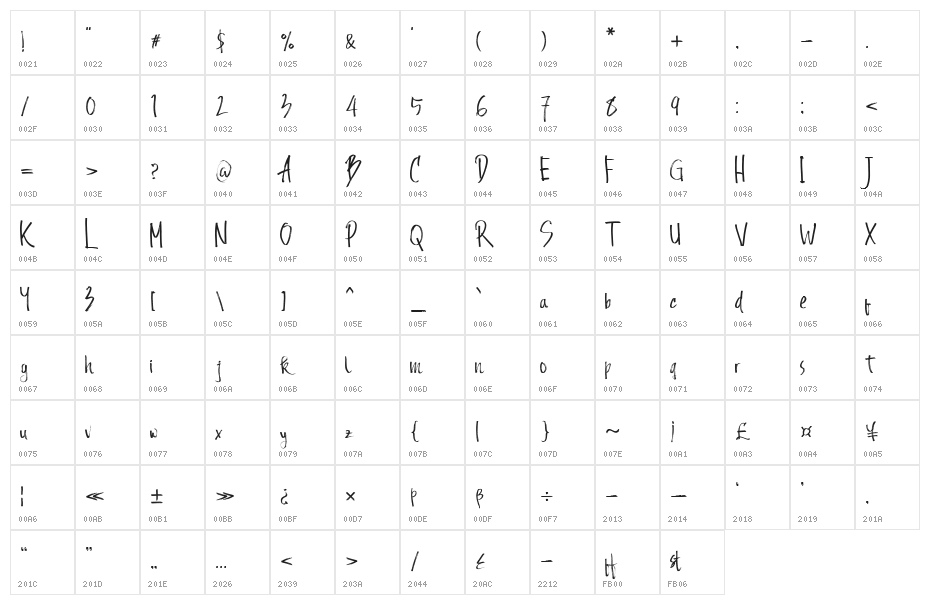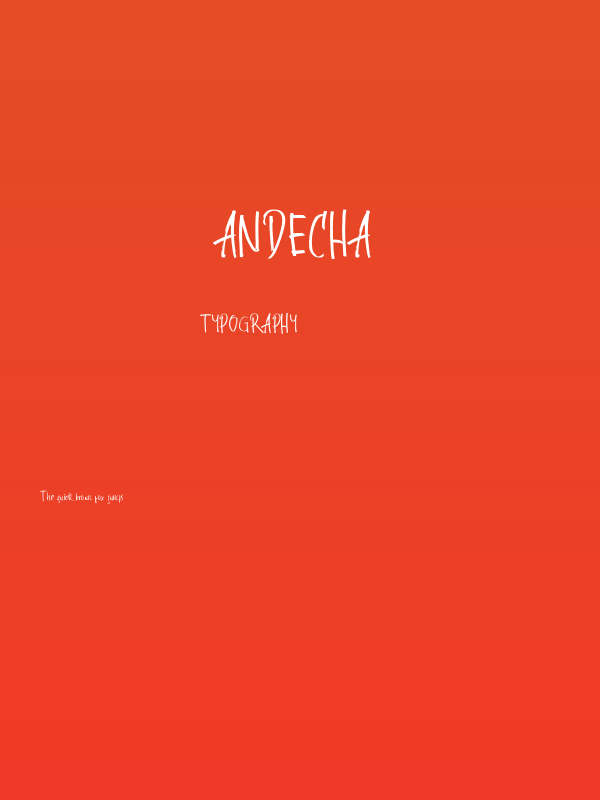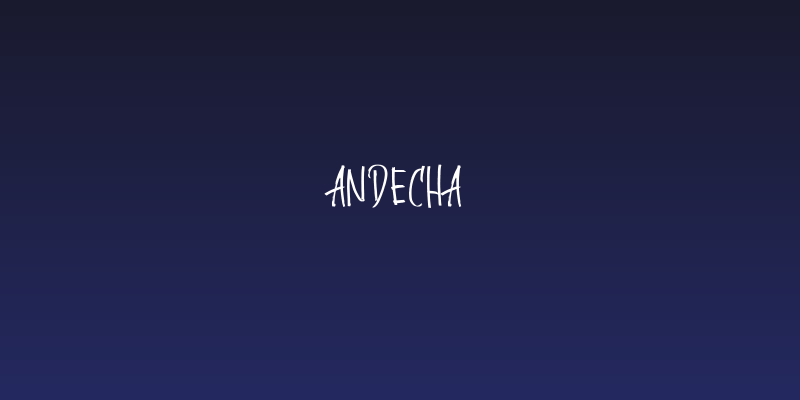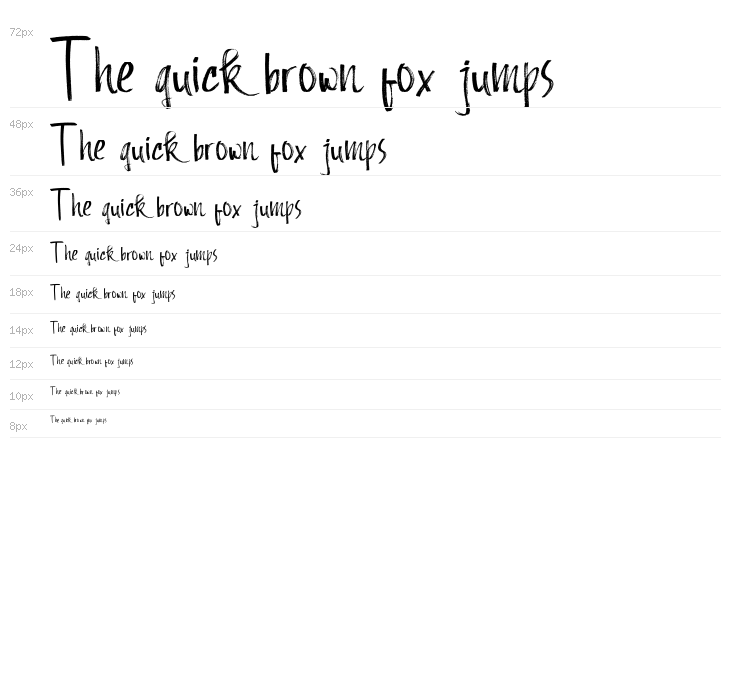
Andecha Font
Andecha Description
This font features a dynamic and expressive handwritten style, characterized by its irregular strokes and playful curves. The uppercase letters exhibit a bold and confident presence, while the lowercase letters maintain a more casual and fluid appearance. The numerals and special characters are crafted with the same energetic flair, adding to the font's overall lively and artistic feel. The strokes vary in thickness, providing a sense of movement and spontaneity. This font is perfect for projects that require a personal touch or a creative, informal vibe.
| Use Case | Headlines, Logos, Artistic projects |
| Proposed Projects | Ideal for greeting cards, invitations, posters, and branding that seeks a personal and artistic touch. |